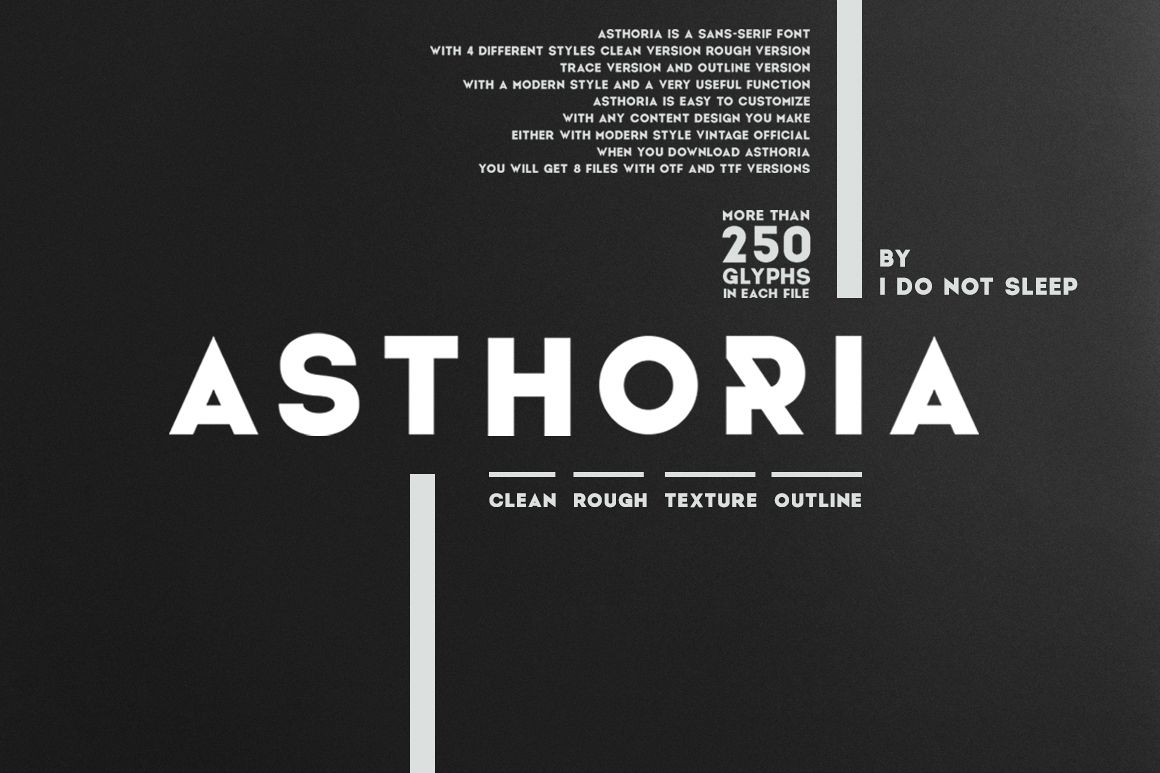
Asthoria
want to introduce our latest font product “Asthoria”. is a Sans-serif font with a touch of elegant handwriting, with a 4 style version regular, rough, texture and outline. looks very classy, modern, hipster, and unisex. Good for your design, brand logo, magazine font contain, packaging, and others, can be customized to your need. you can see in the preview as an example, looks expensive and classy. I believe we have the same perception.You will get 8 files when you download Asthoria OTF and TTF versions.Although asthoria looks classy and expensive, asthoria has a fairly cheap price, so as not to burden you, and all happy. your satisfaction is our main.